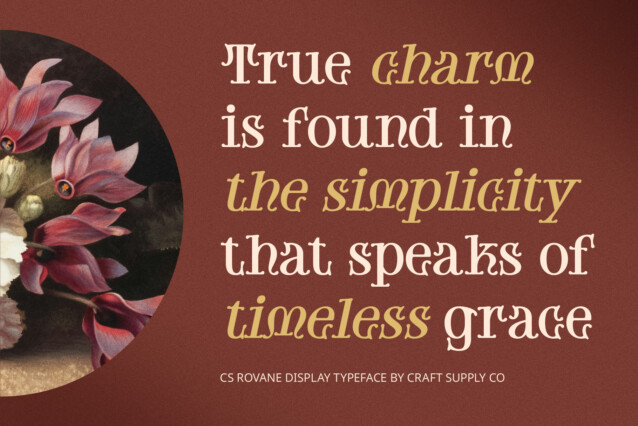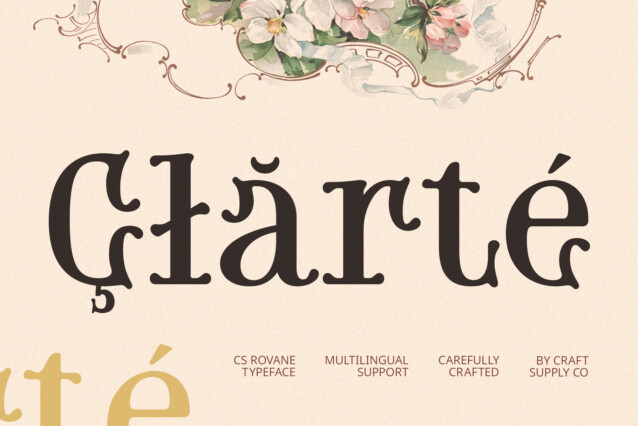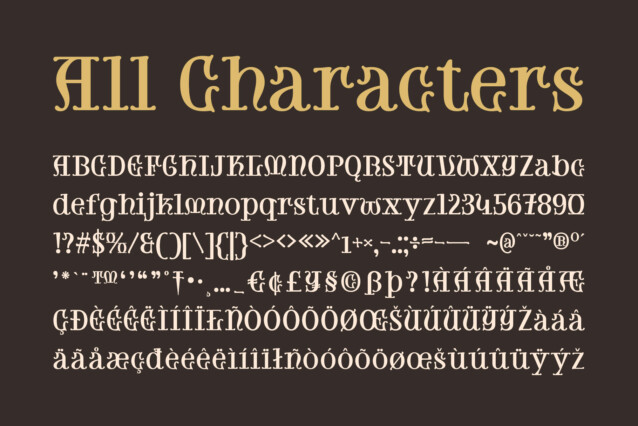
CS Rovane Font
CS Rovane Font is a display font inspired by the uncial style, characterized by distinctive, curved, and rounded letterforms. Drawing from the rich history of medieval calligraphy, this font evokes the elegance and artistry of ancient handwritten scripts. Its graceful curves and unique structure give it an unmistakable classic feel, transporting users back to a time when every letter was crafted with care and precision.